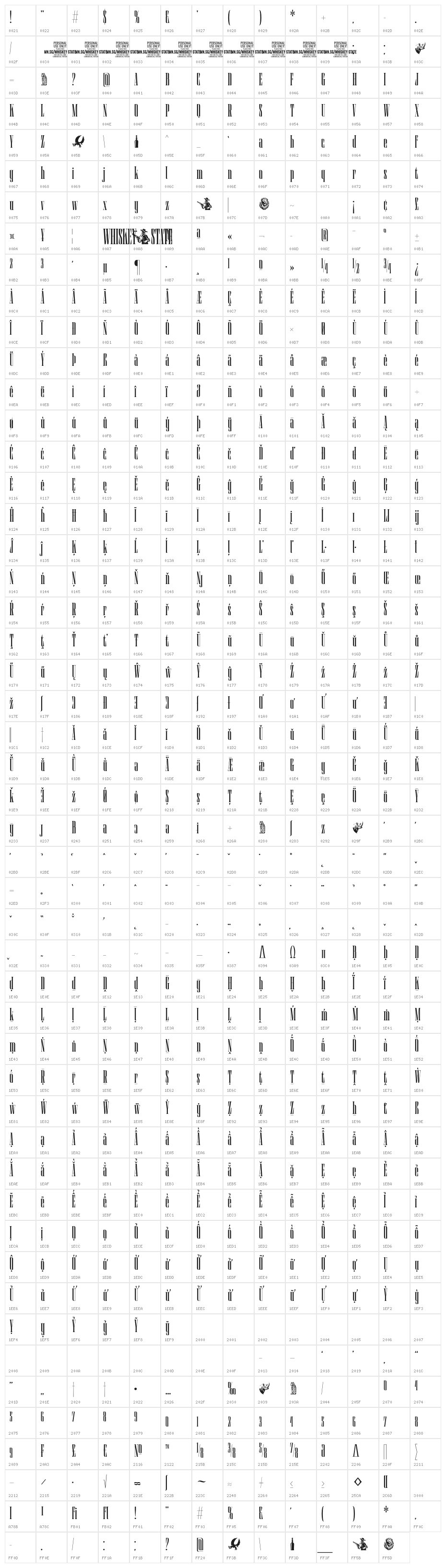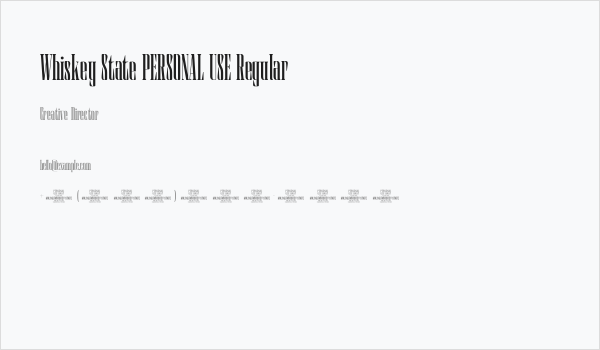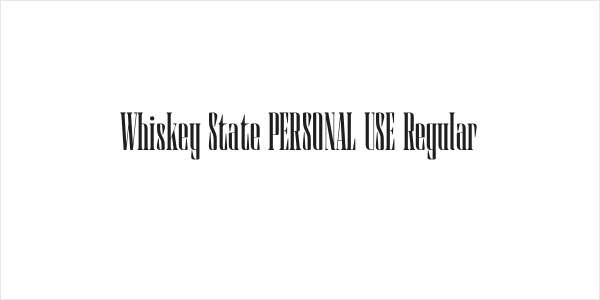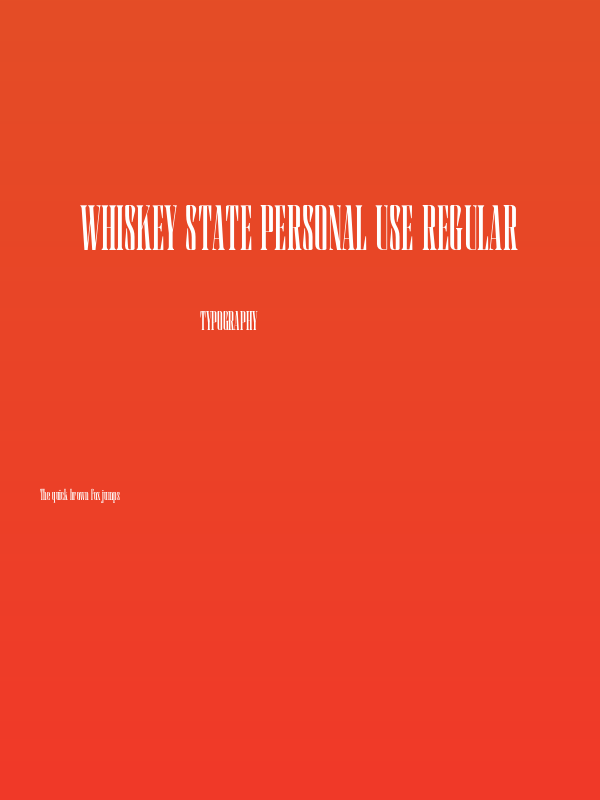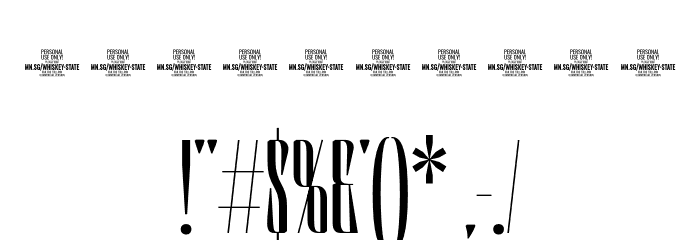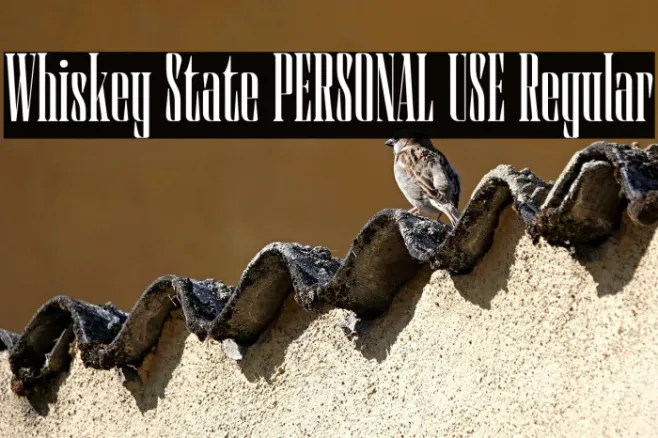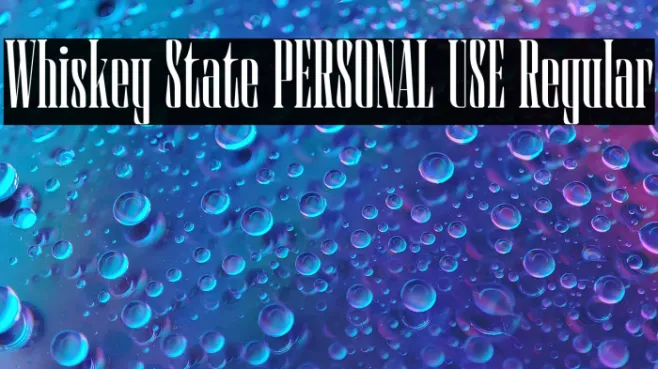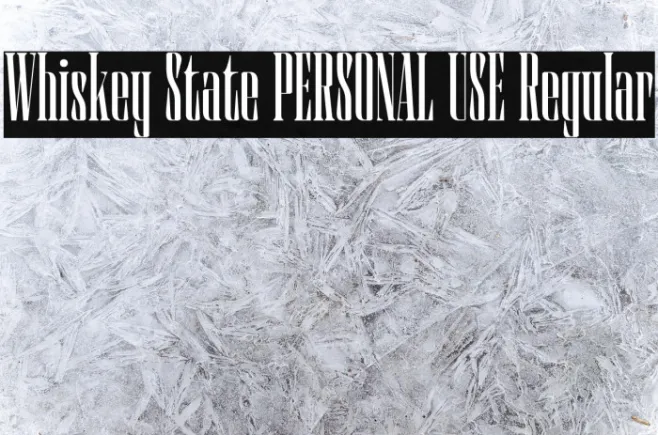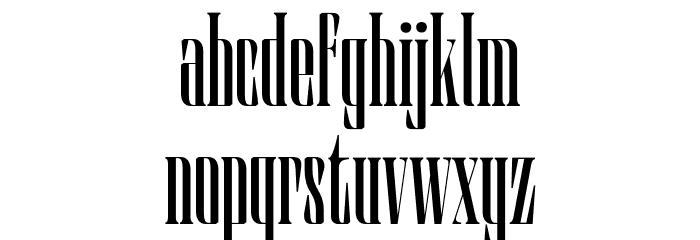
Whiskey State PERSONAL USE Regular Font
Whiskey State PERSONAL USE Regular Description
This font features a bold and elongated design with a distinct vintage flair. The uppercase letters are tall and narrow, creating a striking presence that commands attention. The lowercase letters maintain a similar style, with a consistent height that complements the uppercase. The numerals and special characters follow the same aesthetic, ensuring uniformity across all text elements. The overall design is reminiscent of classic whiskey labels, evoking a sense of nostalgia and elegance. The sharp serifs and high contrast between thick and thin strokes add to its decorative appeal, making it ideal for projects that require a touch of sophistication and historical charm.
| Width | Condensed |
| Overall Style | Vintage |
| Use Case | Logos, Headlines, Posters |
| Proposed Projects | Ideal for branding, packaging, posters, and any design work that requires a vintage or classic touch. |